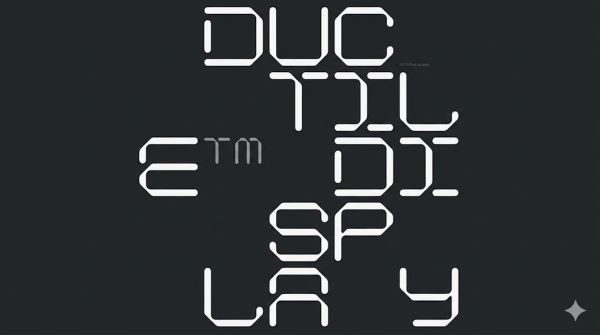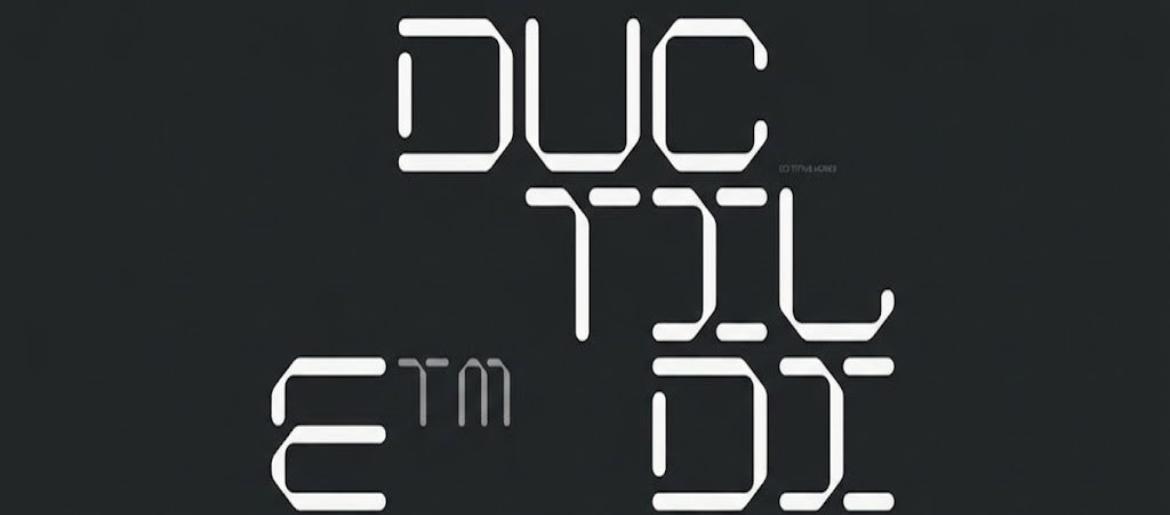
Ductile Display Font
Ductile Display is a modular display typeface designed by Titus Homei, a graphic and type designer based in Bucharest, Romania. Published in March 2025 and released under a Standard Commercial License, it draws on modular construction principles — building letterforms from repeating structural units — to produce a display typeface with a distinctive geometric rigidity that suits poster design, editorial headers, branding, and experimental layout work.